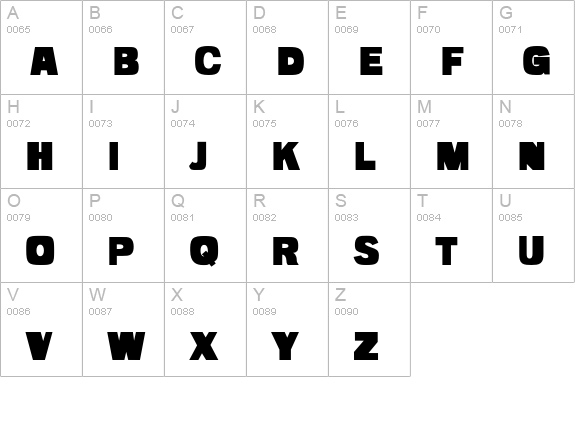
Populist-Shout Font Details
Introducing Populist-Shout font, a bold and dynamic typeface designed to make your text stand out with a powerful presence. With its strong, uppercase characters and unique styling, Populist-Shout font is perfect for making a statement in headlines, titles, and branding projects. The font exudes confidence and energy, making it ideal for projects that require a touch of boldness and impact. Best of all, Populist-Shout font is completely free to download at FontsMarket.com. Simply head to the website and add this eye-catching font to your collection without spending a penny. With its combination of striking design and accessibility, Populist-Shout font is sure to become a favorite choice for designers and creatives looking to make a big impression. Download it now and elevate your projects with this powerful and expressive typeface.